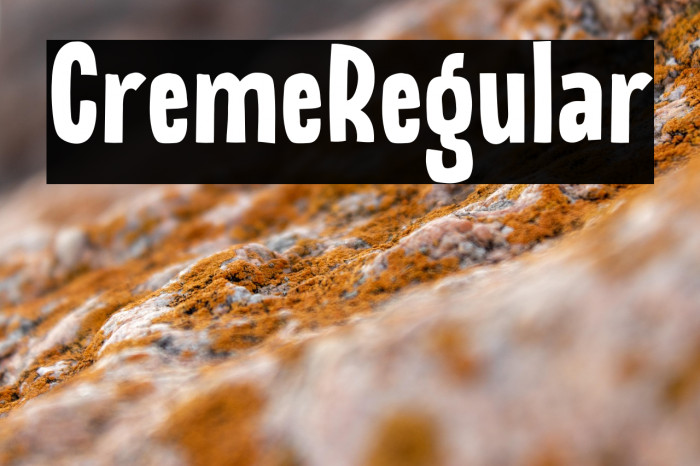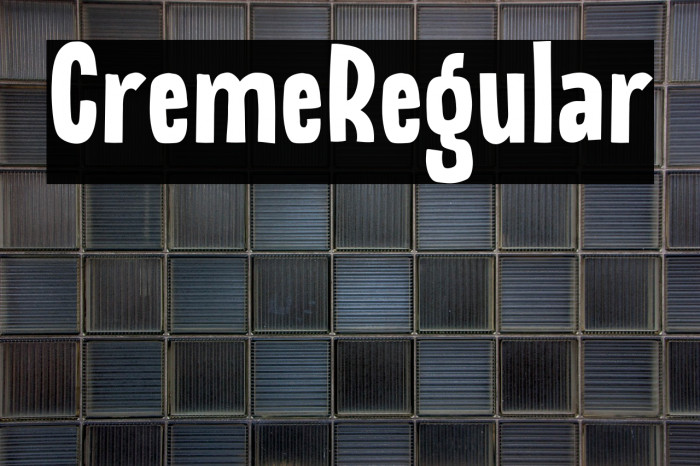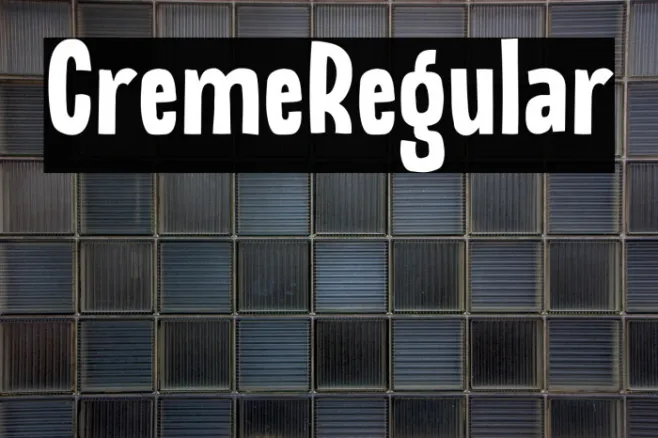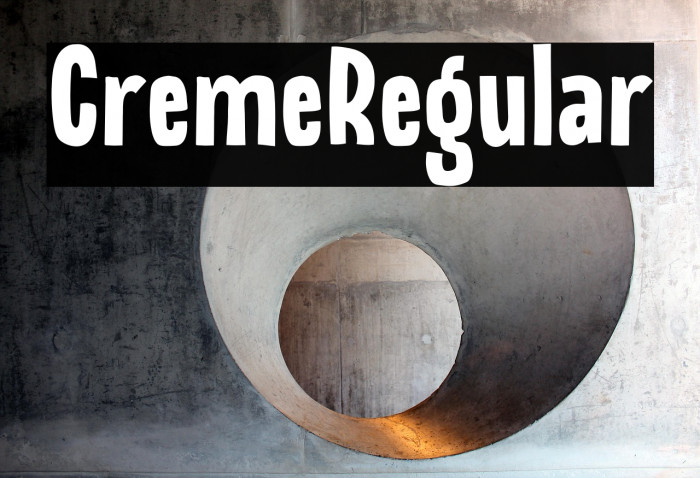
CremeRegular Font
CremeRegular Description
This font features a bold and playful design with a slightly condensed appearance. The characters have a hand-drawn quality, giving them a unique and informal style. The uppercase letters are tall and slightly narrow, while the lowercase letters maintain a consistent height, contributing to a cohesive look. The numbers are bold and easy to read, matching the overall aesthetic of the font. Special characters are included, maintaining the same playful and bold style. The font's design is suitable for projects that require a fun and engaging visual impact.
| Overall Style | Playful, Informal |
| Proposed Projects | Ideal for children's books, playful branding, posters, and creative projects that require a fun and engaging typeface. |